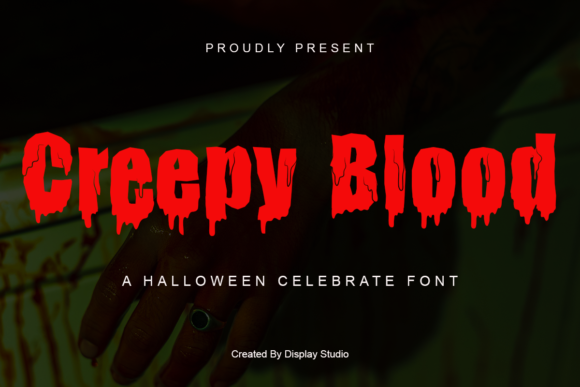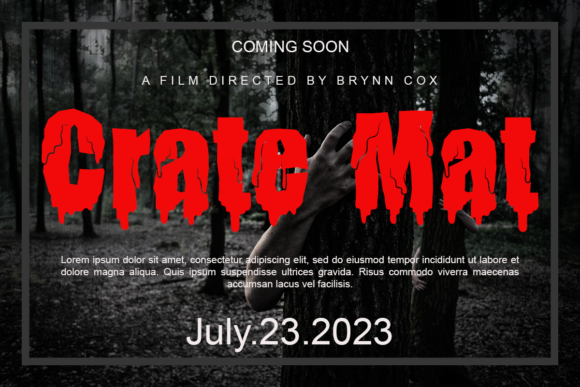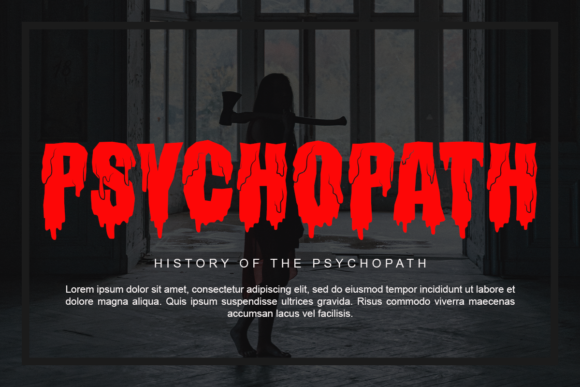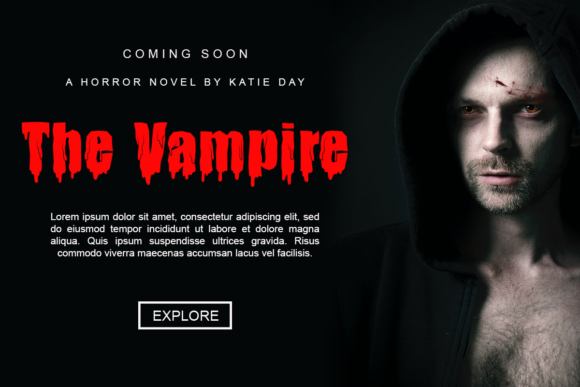
Creepy Blood Font
About the Creepy Blood Font
We are excited to introduce Creepy Blood Font, a must-have typeface for any serious designer. Creepy Blood is a horror looking and scary display font. This font is suitable for designs such as t-shirts, sportswear, logos, advertisements, clothing, and more.
Creepy Blood excels as a display font for headlines, posters, and branding projects requiring a bold, aggressive aesthetic. Its impact is maximized in short bursts of text; it’s unsuitable for body copy or UI elements where readability is paramount. Avoid using it for lengthy paragraphs or small sizes.
The font’s core personality is undeniably bold and menacing. It’s ideal for horror-themed projects, heavy metal album art, or brands that wish to project a rebellious, edgy image. Consider pairing it with a clean sans-serif like Montserrat for contrast or a sharper geometric sans-serif such as Futura for a more modern feel.
For a slightly softer counterpoint, a thin, elegant serif like Garamond could create interesting visual tension, while a playful, slightly distorted script could add a touch of macabre whimsy. Avoid pairing it with other highly decorative or overly-complex fonts to prevent visual overload.
Creepy Blood Font Usage Examples
Creepy Blood Font Example